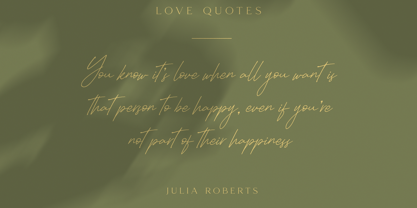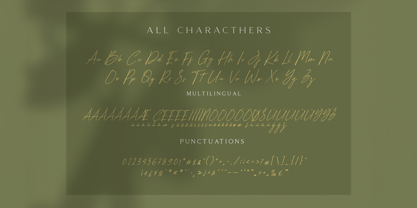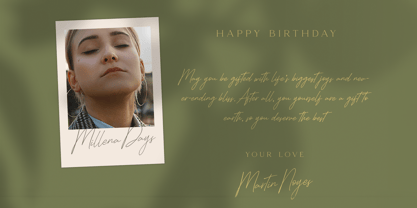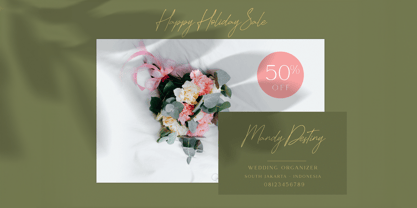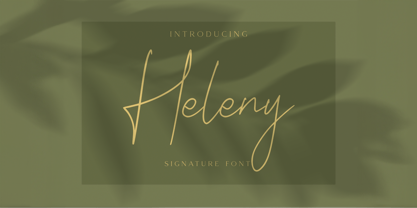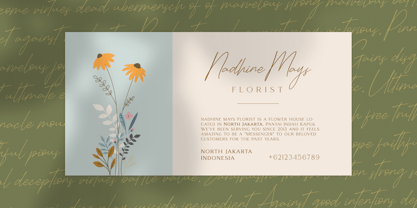
Heleny
The Heleny Font Family was designed by Trio Nazzar Saputra, Wahyu Hadi Yuana and published by Craft Supply Co. Heleny contains 2 styles and family package options. More about this family
Introducing New Font : Heleny – Signature Script Font
Heleny – Signature Script Font is an handwritten script font based on the expression of real handwriting. Heleny – Signature Script Font will work perfectly for fashion, e-commerce brands, trend blogs, wedding boutiques or any business that wants to appear upscale and chic.
Heleny – Signature Script Font also Suitable for Logo, greeting cards, quotes, posters, branding, name card, stationary, design title, blog header, art quote, typography, art, modern envelope lettering or book design, happening style like handdrawn design or watercolor design theme, craft design, any DIY project, book title, or any purpose to make your art/design project look pretty and trendy.